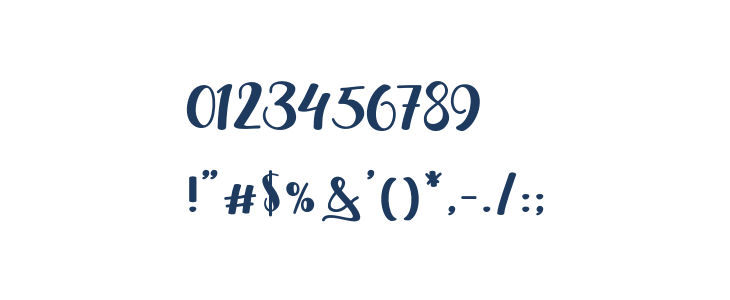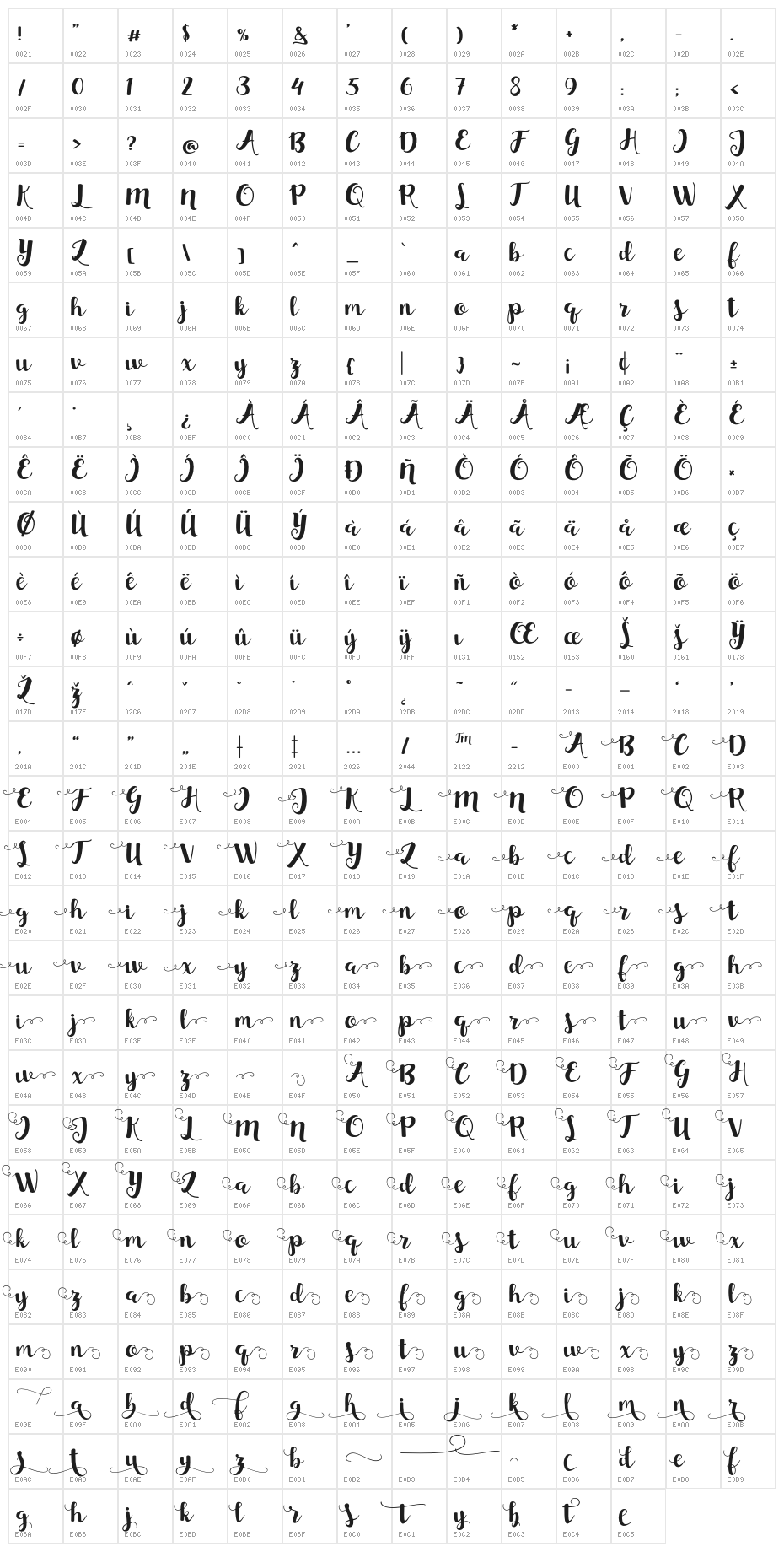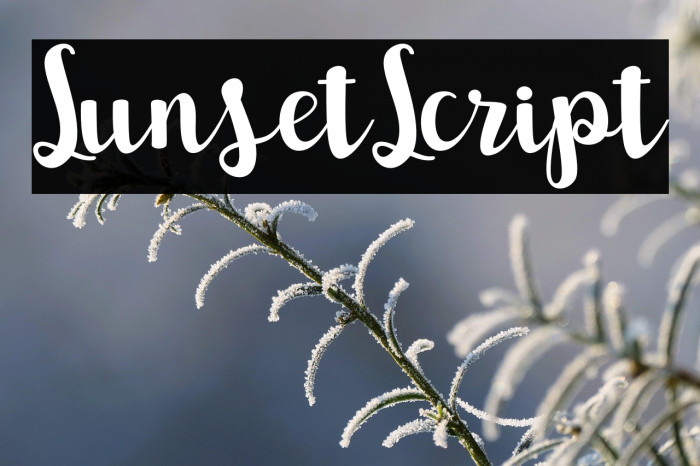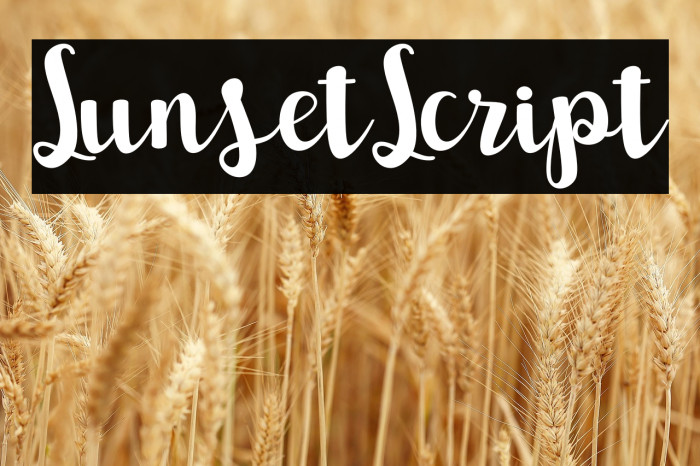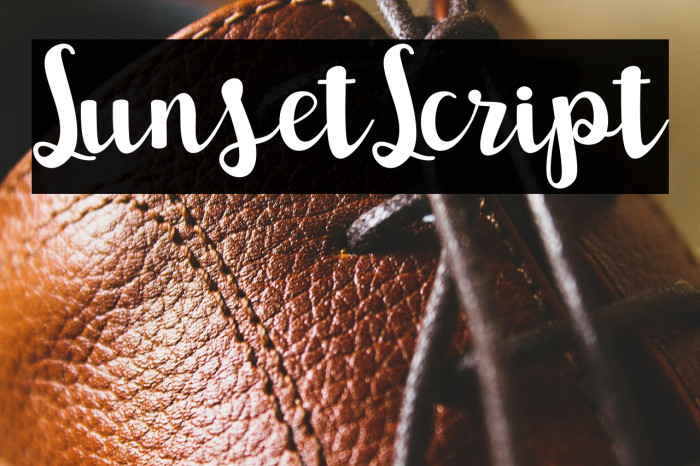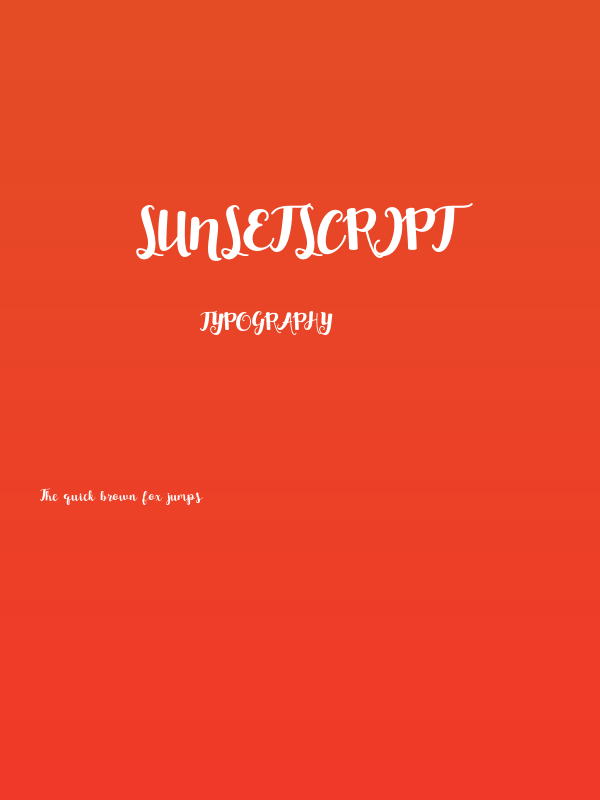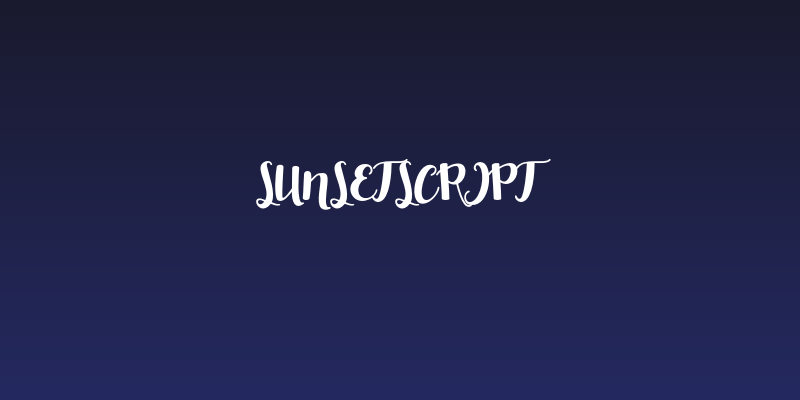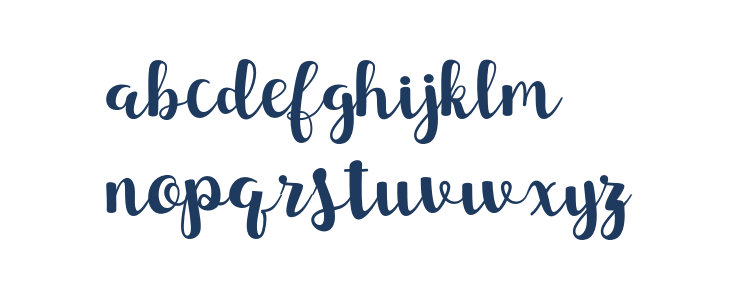
SunsetScript Font
SunsetScript Description
This font features a flowing, cursive style with elegant, sweeping strokes that give it a dynamic and lively appearance. The uppercase letters are bold and prominent, with distinctive loops and flourishes that add a touch of sophistication. The lowercase letters maintain a consistent style, with smooth connections between characters that enhance readability while preserving the script's artistic flair. The numerals are equally stylish, with a playful yet refined design that complements the overall aesthetic. Special characters are crafted with the same attention to detail, ensuring a cohesive look across all text elements. This font is perfect for projects that require a touch of elegance and creativity.
| Use Case | Logos, Invitations, Decorative text |
| Proposed Projects | Ideal for wedding invitations, greeting cards, branding, and logo design. |